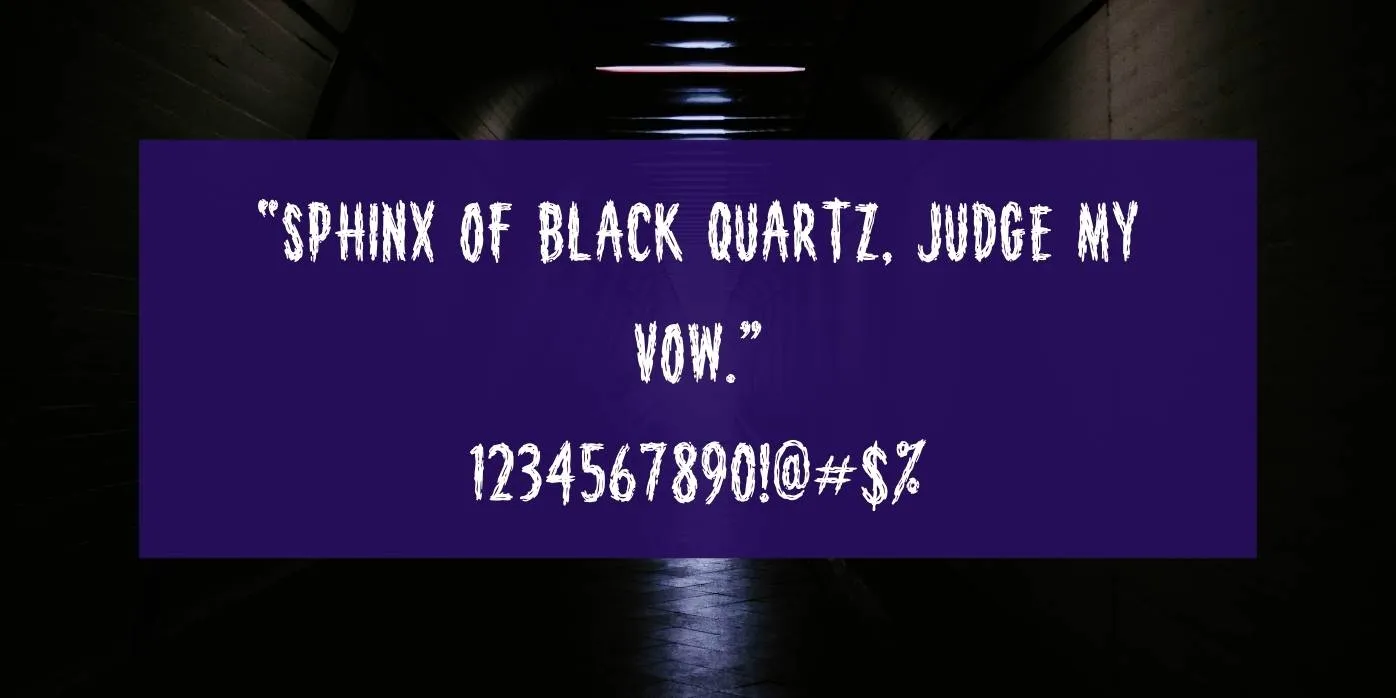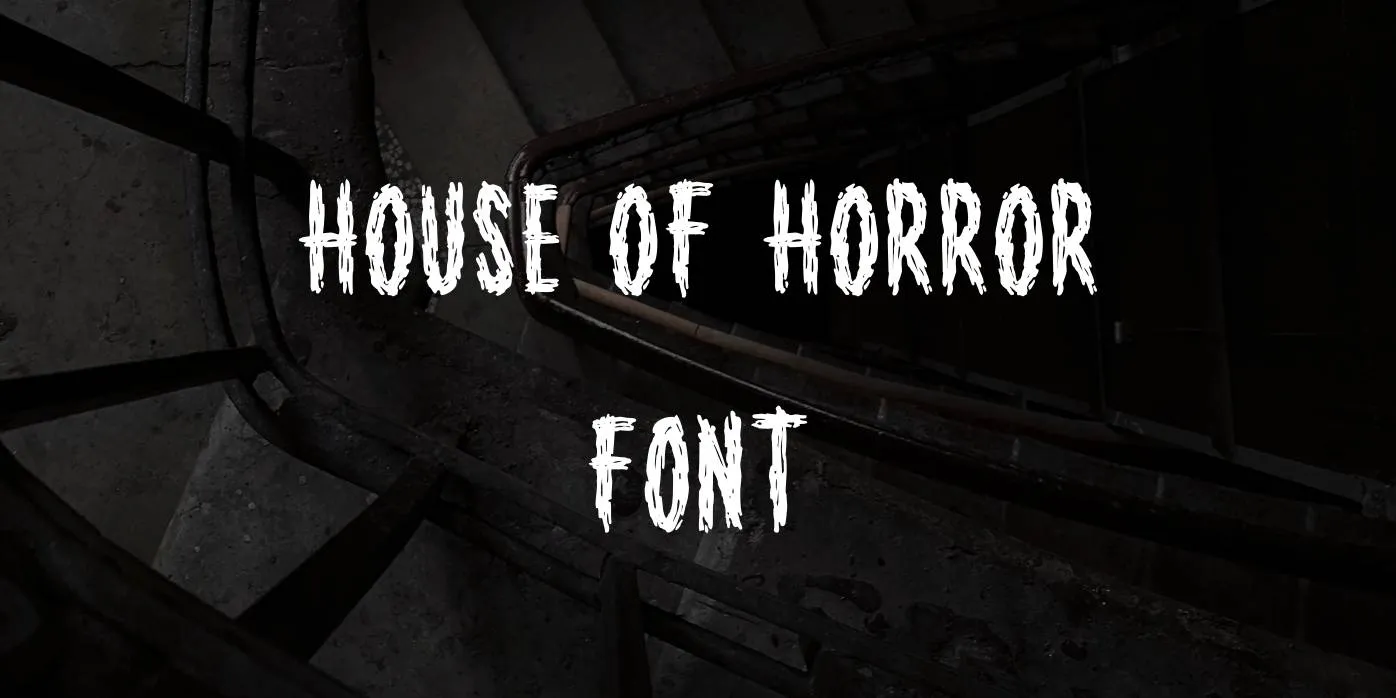
House of Horror Font
House of Horror Font is a fancy typeface created in the year 2000 by American type designer Clarence Andrew. The font was inspired by the classic horror movies of the 1950s. The Font has been used in many movies, TV shows, and video games. The Font is a decorative font that is perfect for creating spooky, Halloween-themed designs.
The font includes upper and lowercase letters, numbers, and punctuation marks. You can also apply a great simple and useful bodoni font that is available on an over web portal and is ready to download. If you’re looking to add a touch of horror to your next project, the font is a perfect choice. The font includes upper and lowercase letters, numbers, and punctuation marks.